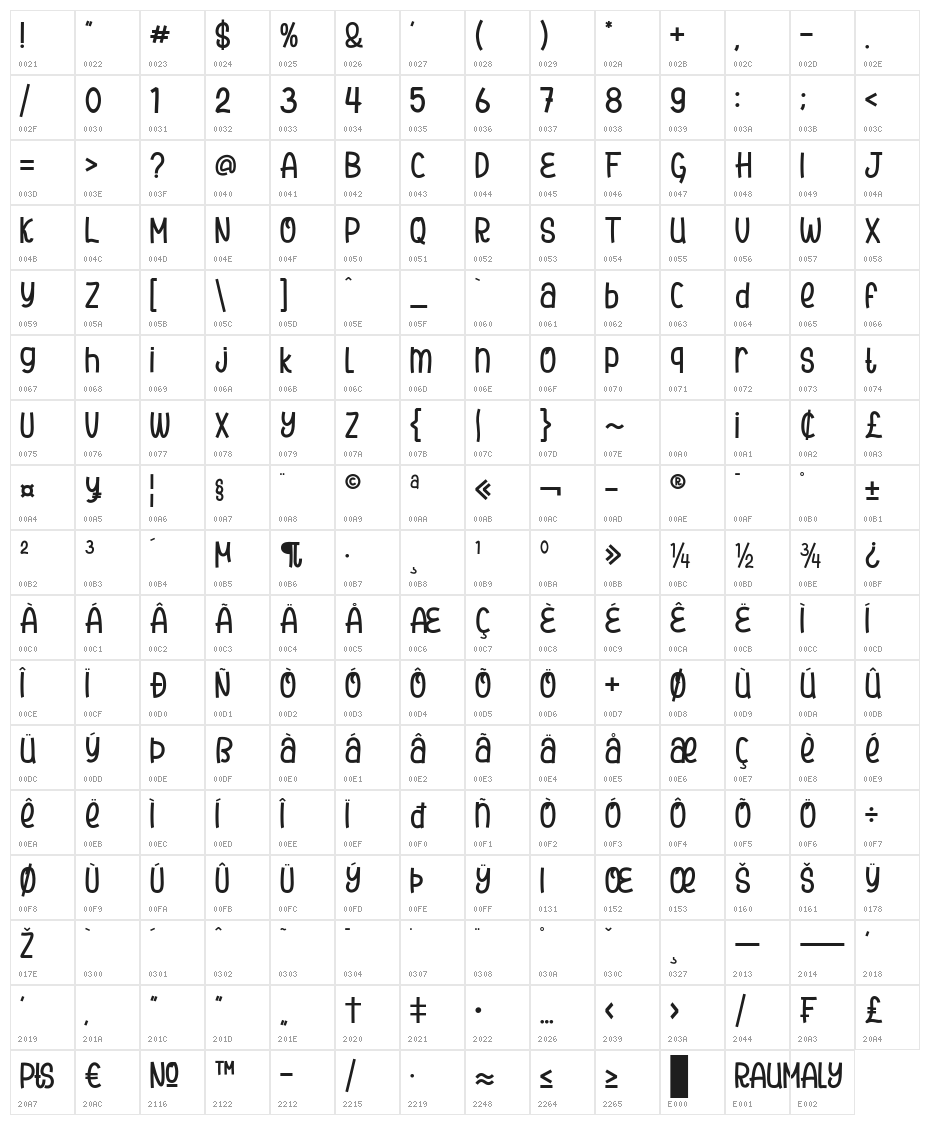
Raumaly Font
Raumaly Description
This font features a playful and whimsical design, characterized by its bold and rounded letterforms. The letters have a slight slant, giving them a dynamic and lively appearance. The strokes are consistent in thickness, providing a uniform look across all characters. The uppercase and lowercase letters maintain a cohesive style, with the lowercase letters mirroring the playful nature of the uppercase. The numerals and special characters are designed to match the overall aesthetic, ensuring a harmonious appearance throughout. This font's unique style makes it stand out, while still being legible and versatile for various design needs.
Overall StylePlayful
Proposed ProjectsIdeal for children's books, playful branding, greeting cards, and creative posters.